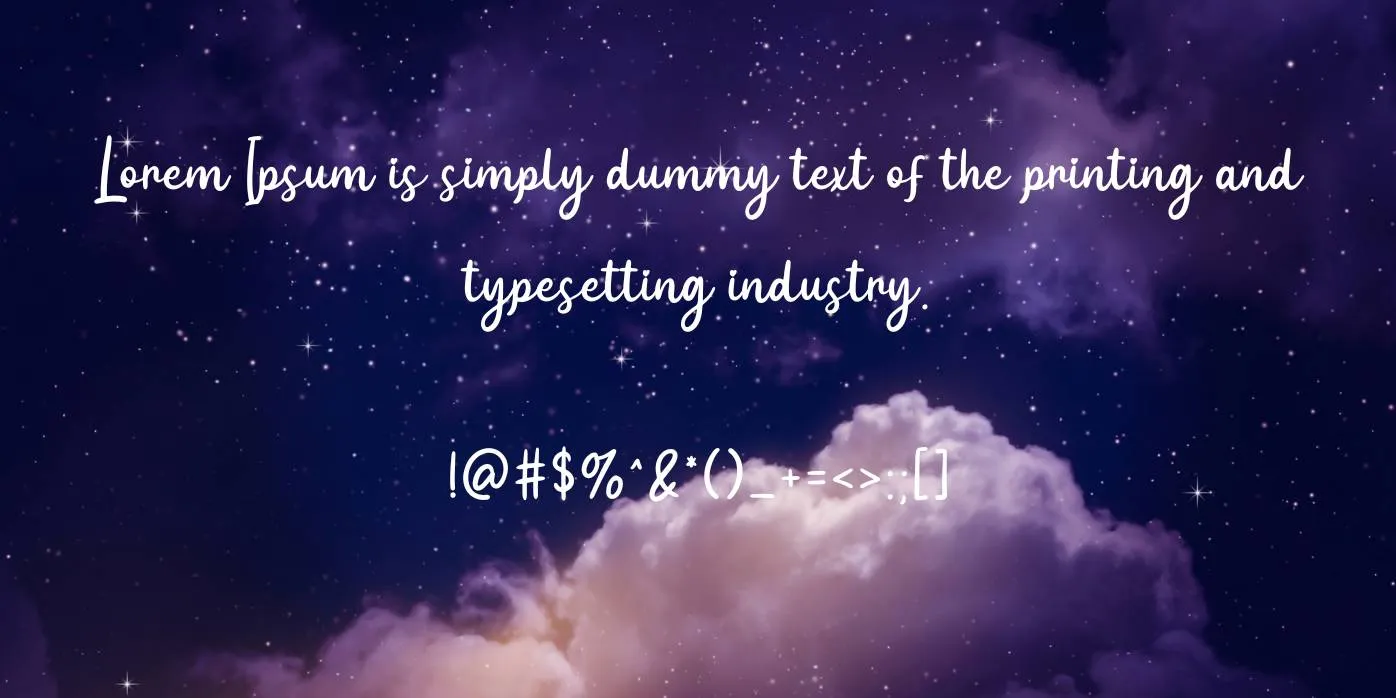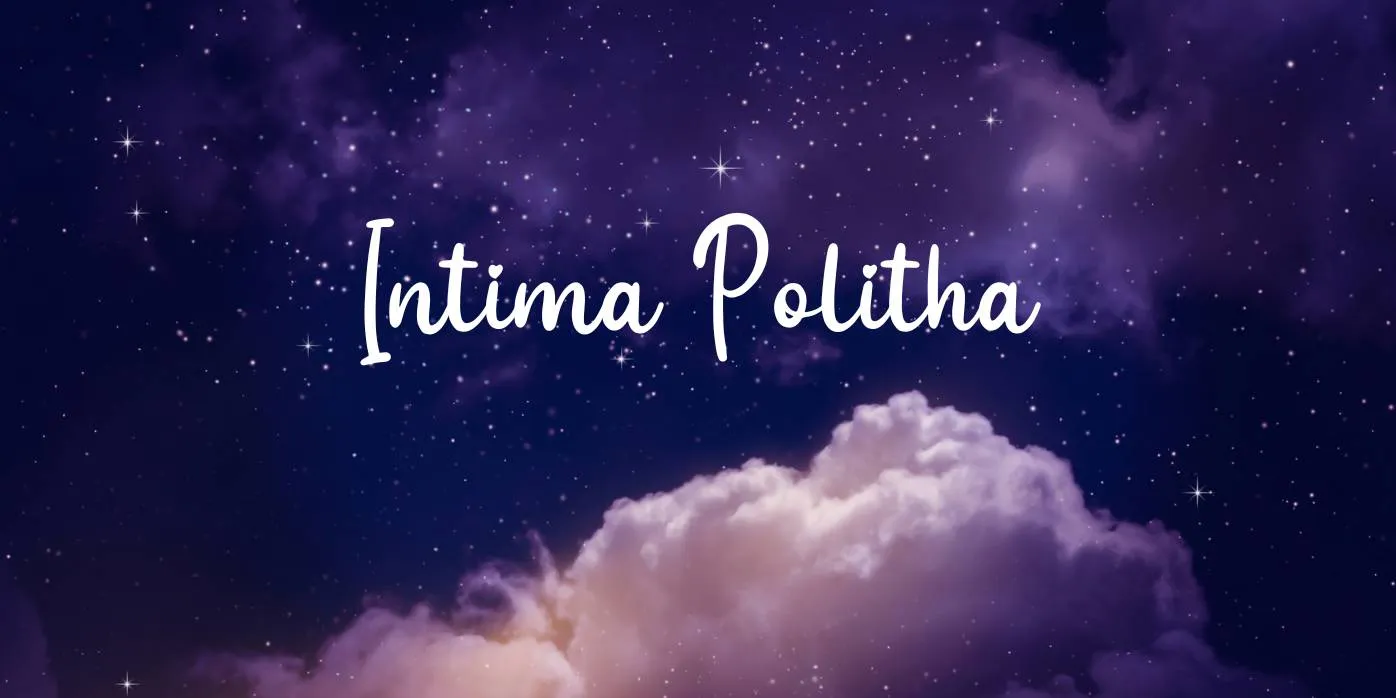
Intima Politha Font
Intima Politha Font is a script type of font. This typeface has awesome visual effects for printing. Attype Studio is the designer of this texture. There are an amazing 266 glyphs for this texture. The characters of this typeface are cool, stylish, and eye-friendly.